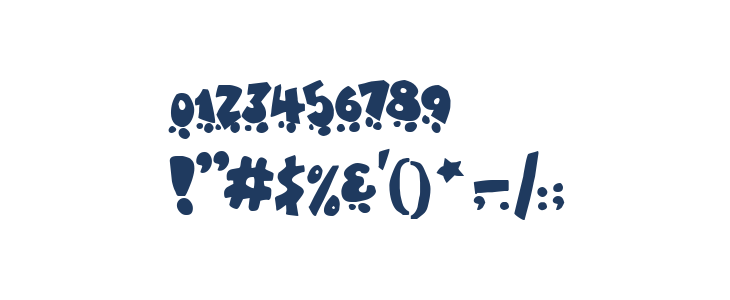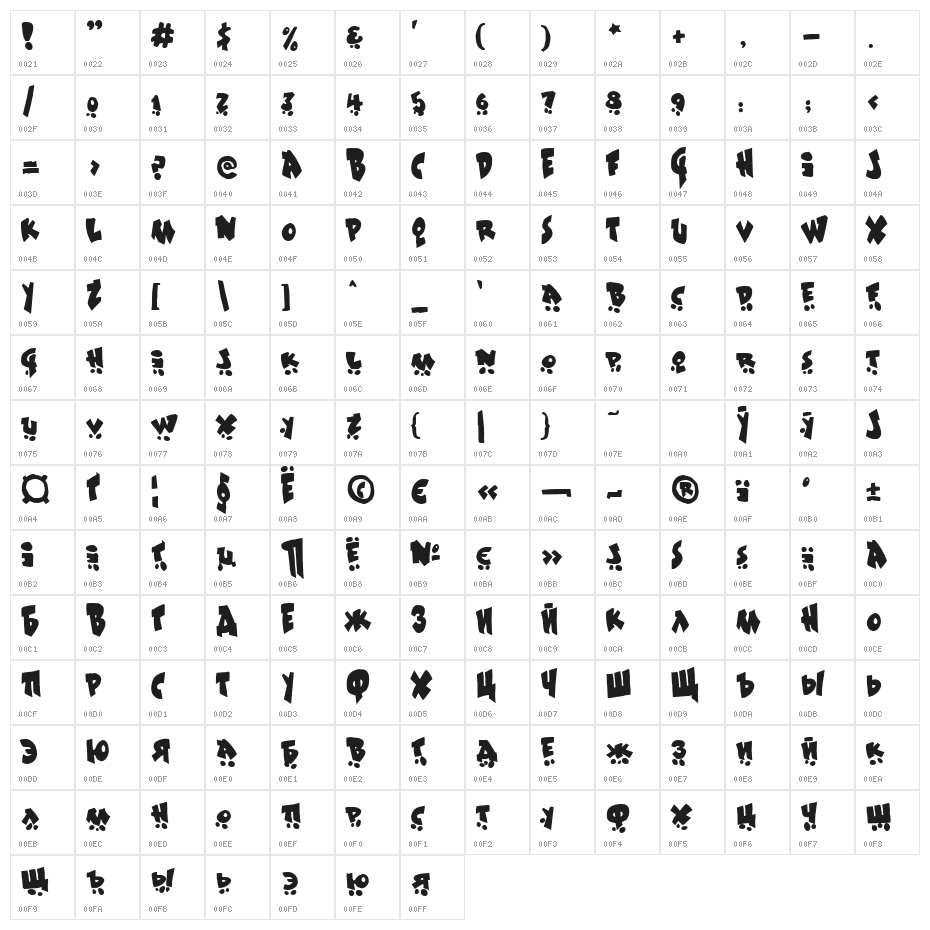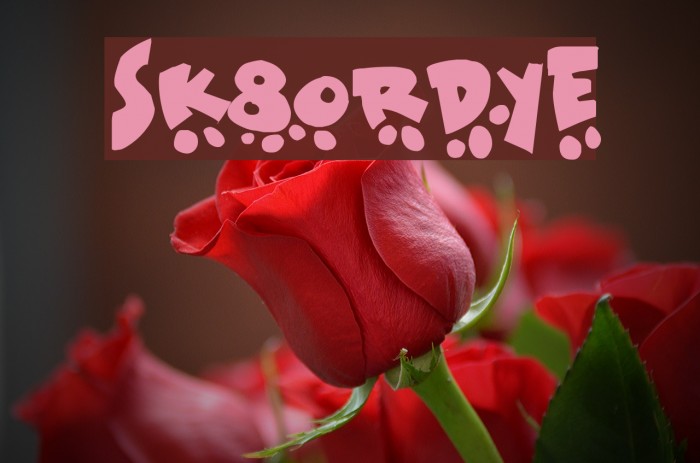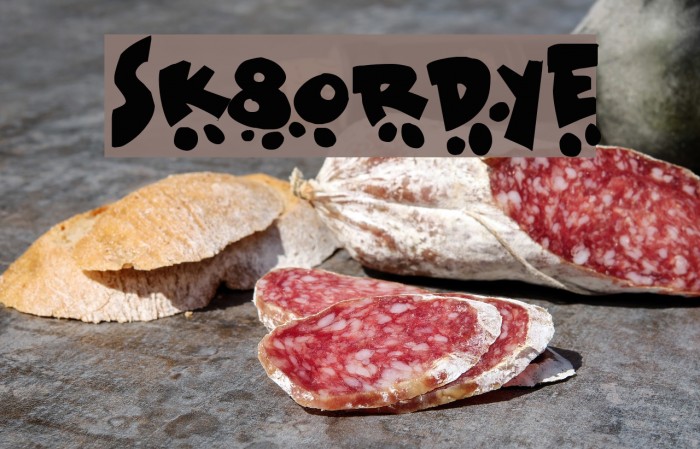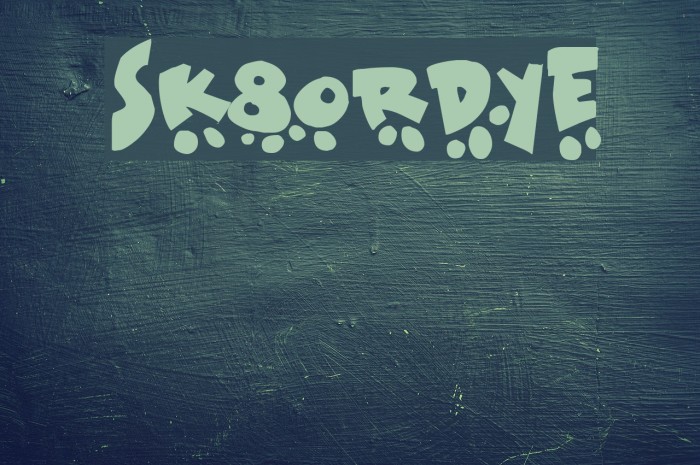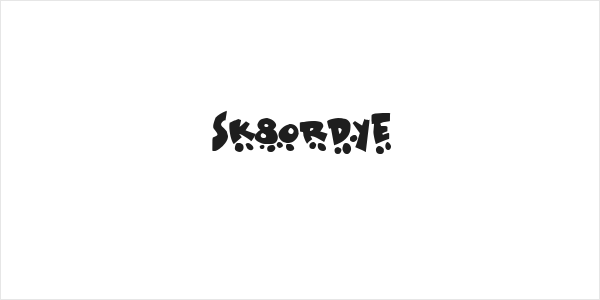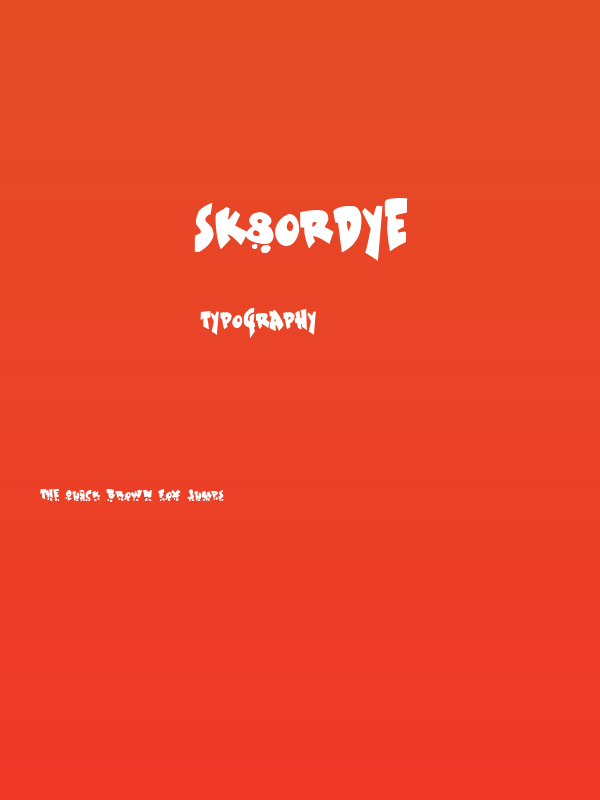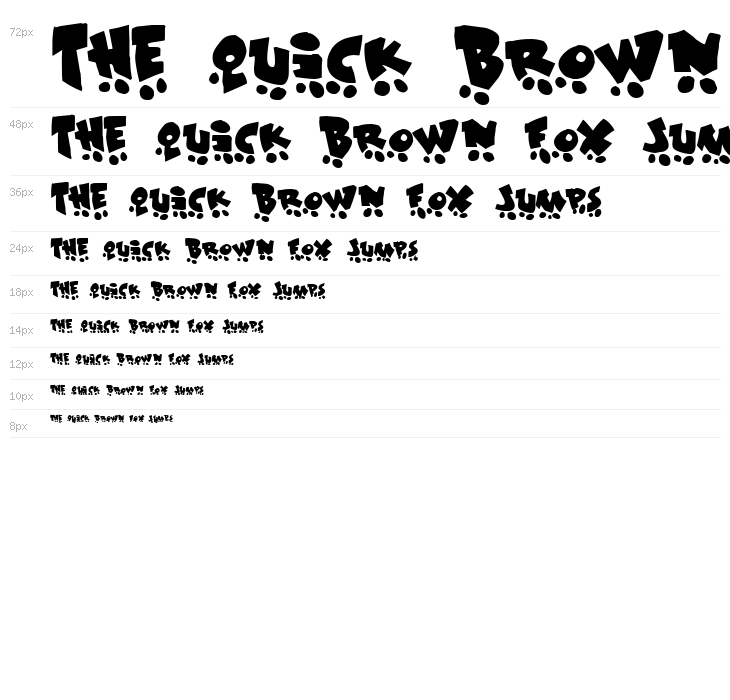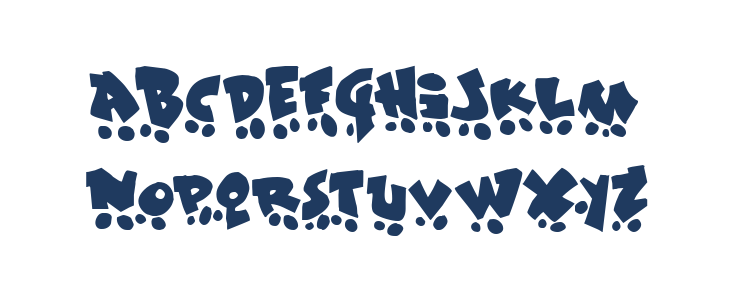
Sk8ordye Font
Sk8ordye Description
This font exudes a playful and rebellious spirit, characterized by its bold, irregular shapes and dynamic, energetic style. The letters are crafted with a sense of movement, resembling graffiti or street art, which gives it a youthful and edgy vibe. The uppercase and lowercase letters maintain a consistent style, with exaggerated curves and sharp angles that create a sense of urgency and excitement. The numbers and special characters follow the same aesthetic, ensuring a cohesive look across all elements. This font is perfect for projects that aim to capture attention and convey a sense of fun and nonconformity.
| Overall Style | Modern, Edgy |
| Use Case | Logos, Posters, Merchandise |
| Proposed Projects | Ideal for skateboarding brands, music album covers, streetwear designs, and event posters. |